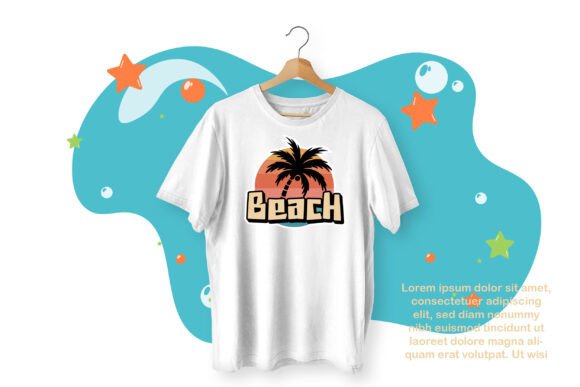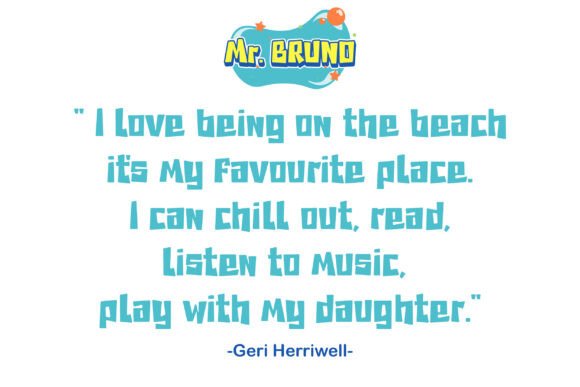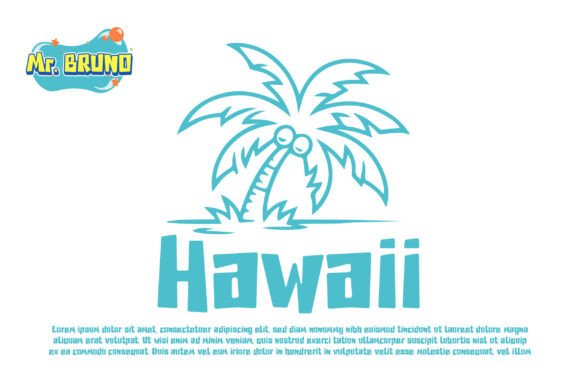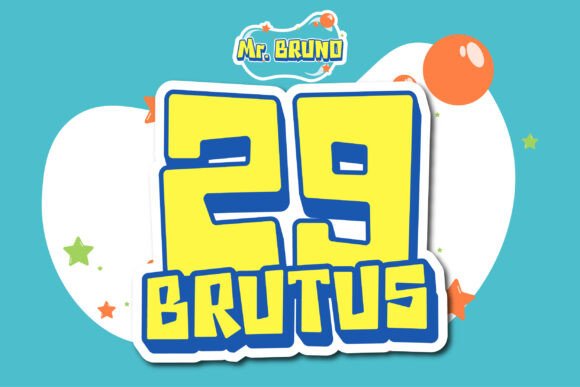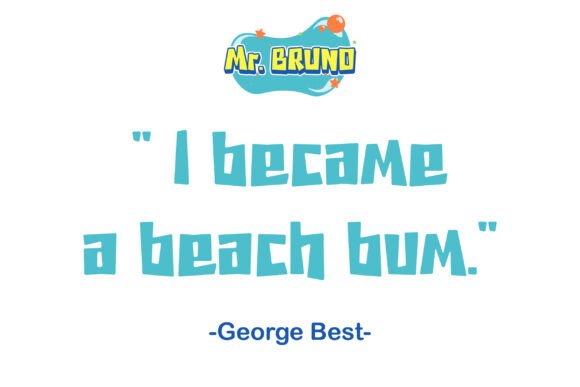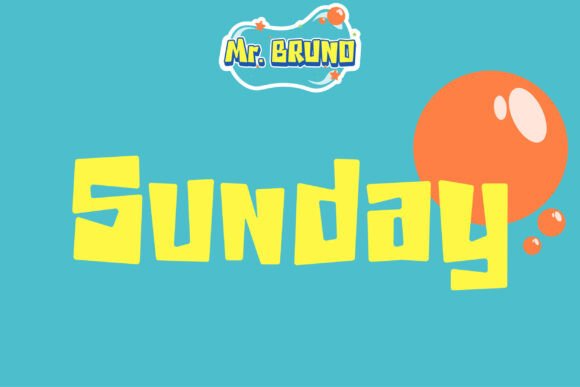
Introduction to Mr. Bruno Font
Introducing MR.
BRUNO, an audaciously bold display typeface drawn from the charisma of the silver screen This font is designed to infuse your creations with a truly unique touch, ensuring they stand out in any crowd – an absolute must-have for social media content, cover title designs, invitations, greeting cards, and much more.
Key Features of Mr. Bruno Font
Why Choose Mr. Bruno Font?
Mr. Bruno Font offers exceptional quality and versatility, making it a valuable addition to your design toolkit. Whether you’re creating for personal projects or commercial use, Mr. Bruno Font delivers professional results.